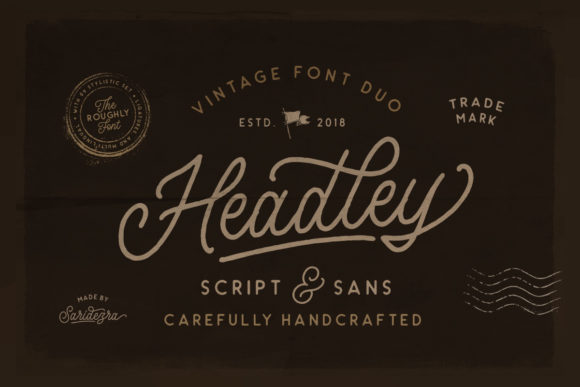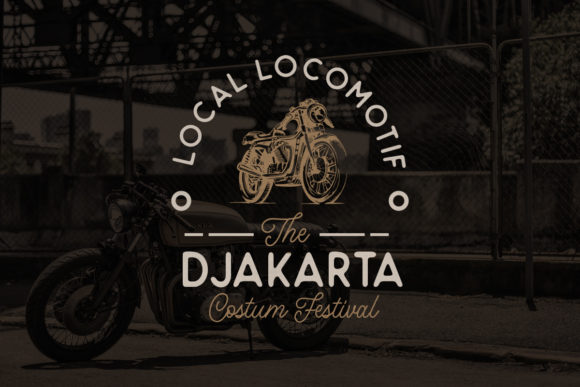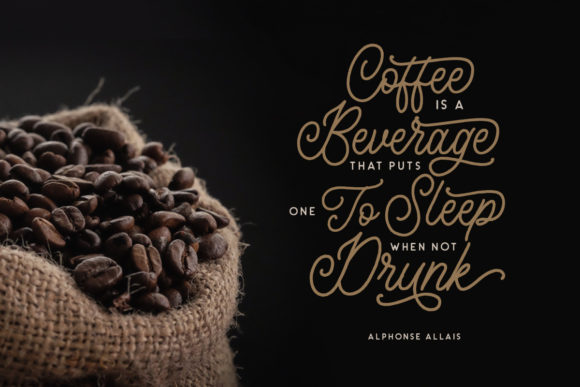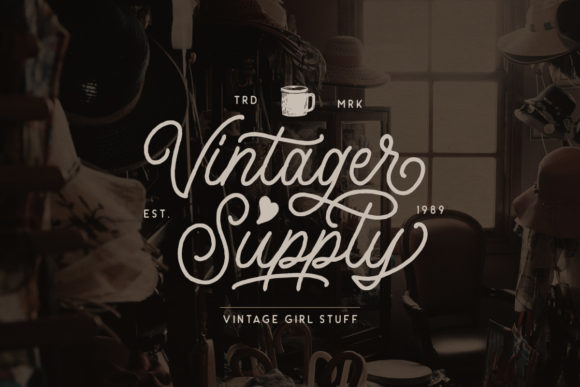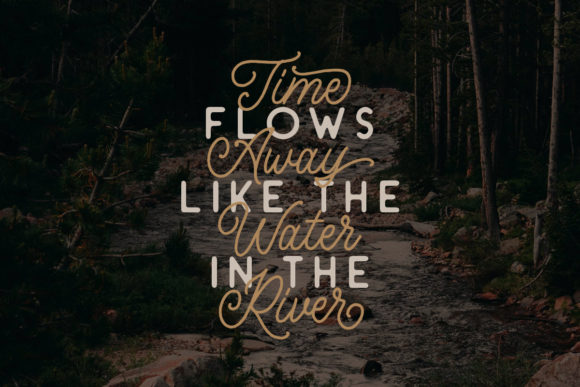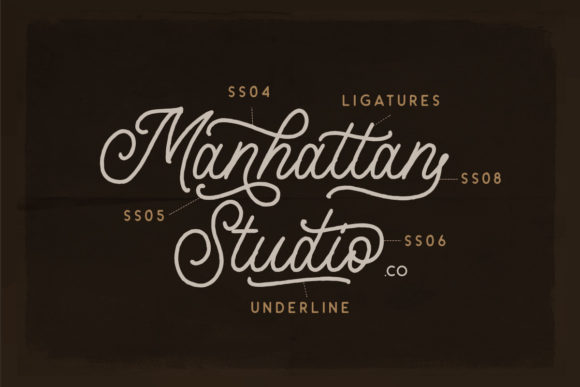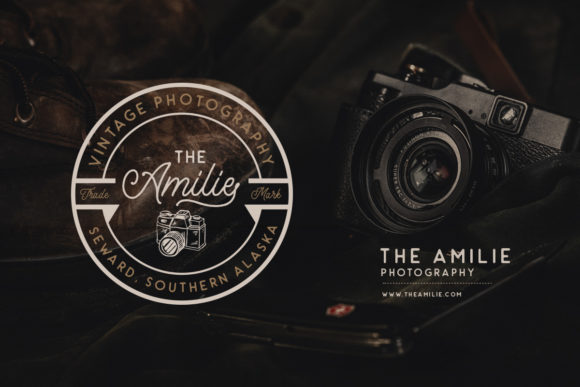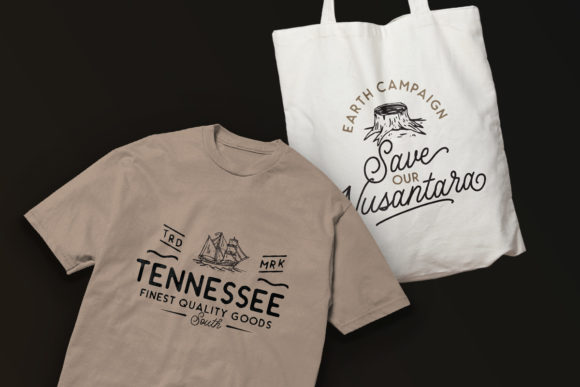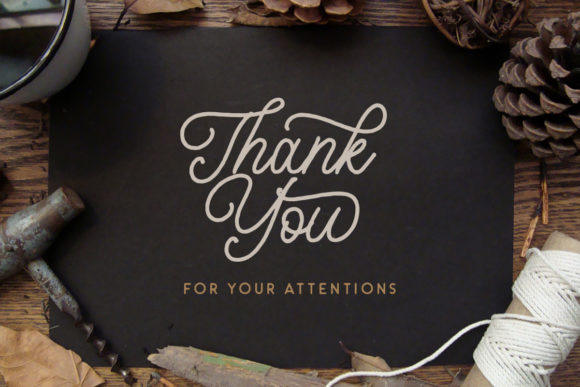
Headley Duo Font
About Headley Duo Font
The Headley is a vintage font duo. It comes in a rough sans and a monoline script version.
Both styles are perfect for logos, quotes, apparel, posters, and much more!